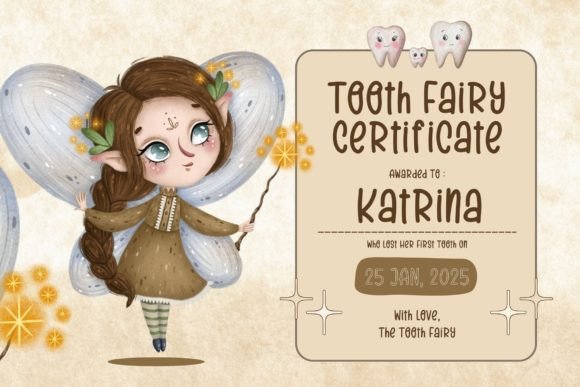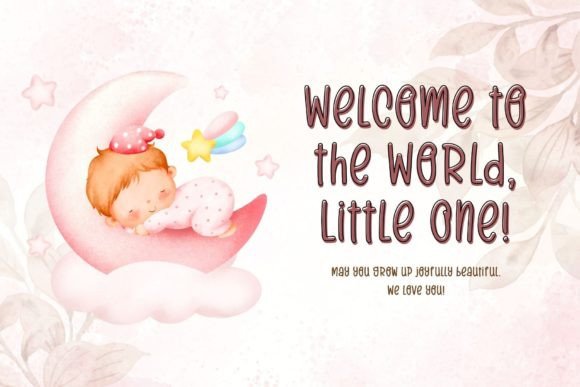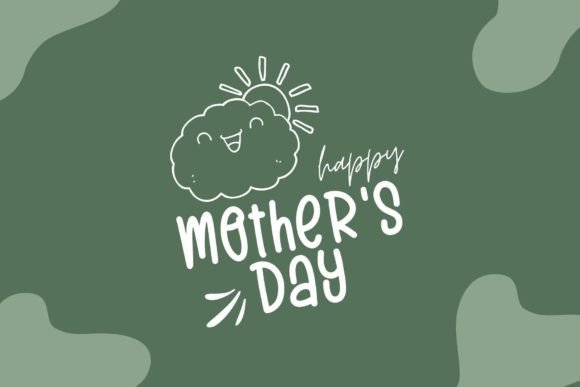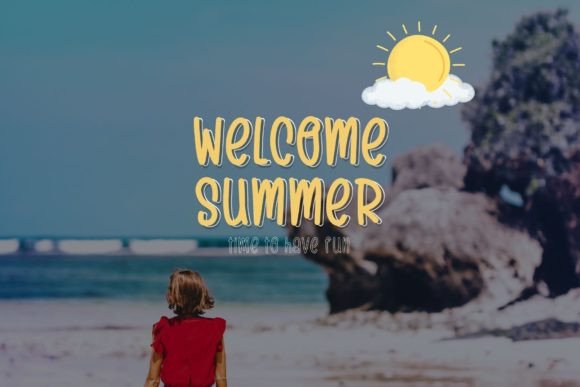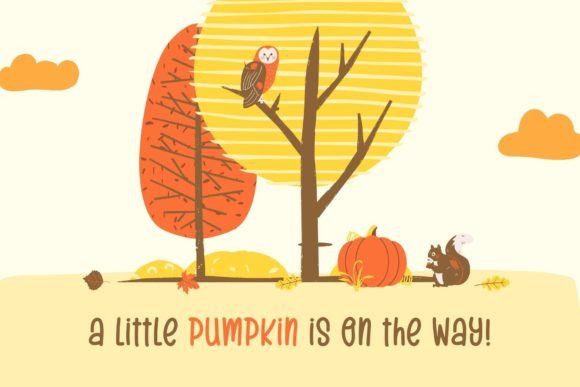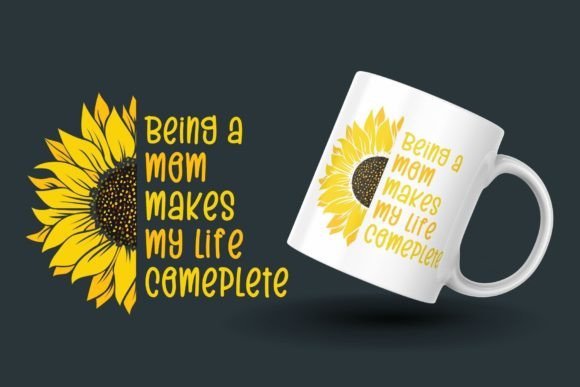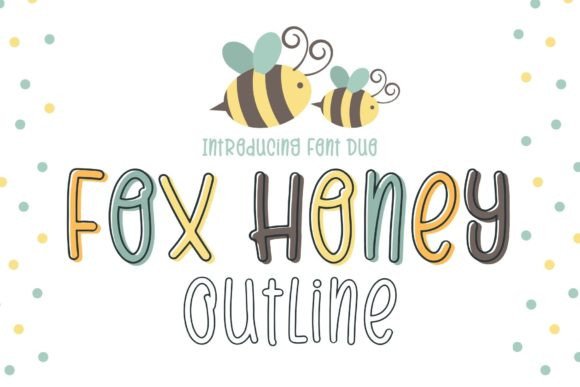
Introducing Fox Honey Font: The Sweetest Addition to Your Design Projects
Are you looking for a font that can add a touch of warmth and friendliness to your design projects? Look no further than Fox Honey Font! This charming and inviting handwritten typeface is perfect for designers and crafters who want to infuse their work with a sense of sweetness and personality. In this article, we’ll dive into the world of Fox Honey Font and explore its features, benefits, and uses.
A Handwritten Typeface with a Personal Touch
Fox Honey Font is a beautifully crafted handwritten typeface that exudes warmth and friendliness. Its playful strokes and rounded edges give it a distinctly hand-drawn feel that’s sure to capture the hearts of your audience. Whether you’re designing a logo, creating a social media graphic, or crafting a brand identity, Fox Honey Font is the perfect choice for adding a personal touch to your work.
Key Features of Fox Honey Font
- Playful strokes: Fox Honey Font features playful strokes that give it a lively and energetic feel.
- Rounded edges: The font’s rounded edges add to its warmth and friendliness, making it perfect for designs that require a touch of sweetness.
- Handwritten feel: Fox Honey Font has a distinctly handwritten feel that’s sure to add a personal touch to your designs.
- Versatile: This font is versatile and can be used for a wide range of design projects, from logos and branding to social media graphics and crafts.
Benefits of Using Fox Honey Font
So, why should you choose Fox Honey Font for your design projects? Here are just a few benefits of using this charming font:
- Adds warmth and friendliness: Fox Honey Font is perfect for designs that require a touch of warmth and friendliness.
- Increases engagement: The font’s playful strokes and rounded edges are sure to capture the attention of your audience and increase engagement.
- Versatile: Fox Honey Font can be used for a wide range of design projects, making it a great addition to your font library.
- Easy to read: Despite its playful feel, Fox Honey Font is easy to read, making it perfect for designs that require a clear and concise message.
Uses of Fox Honey Font
Fox Honey Font is a versatile font that can be used for a wide range of design projects, including:
- Logos and branding: Use Fox Honey Font to create a logo or brand identity that’s warm, friendly, and inviting.
- Social media graphics: Add a touch of sweetness to your social media graphics with Fox Honey Font.
- Crafts: Fox Honey Font is perfect for crafters who want to add a personal touch to their projects, from scrapbooking to card making.
- Digital products: Use Fox Honey Font to create digital products, such as ebooks, printables, and more.
In conclusion, Fox Honey Font is a charming and inviting handwritten typeface that’s perfect for designers and crafters who want to add a touch of warmth and friendliness to their projects. With its playful strokes, rounded edges, and handwritten feel, this font is sure to capture the hearts of your audience. Whether you’re designing a logo, creating a social media graphic, or crafting a brand identity, Fox Honey Font is the perfect choice. So why wait? Download Fox Honey Font today and start adding a touch of sweetness to your design projects!